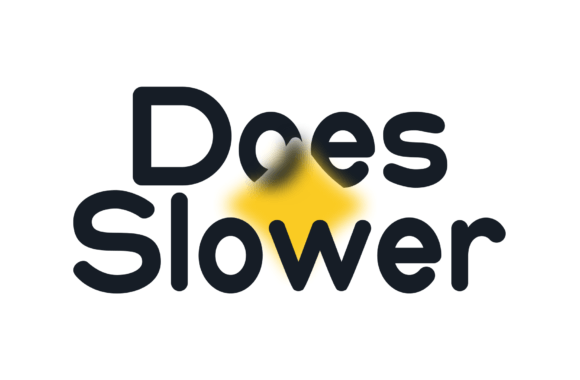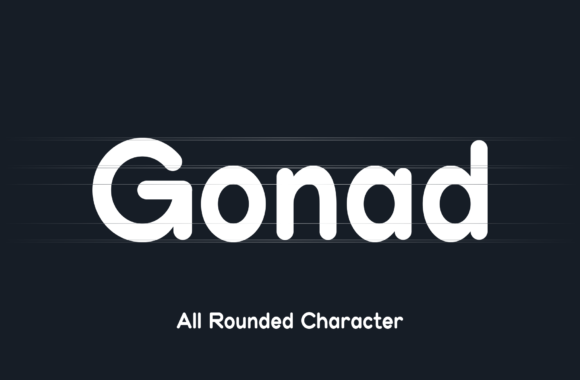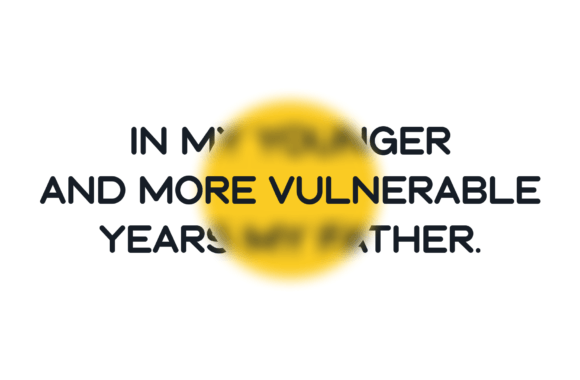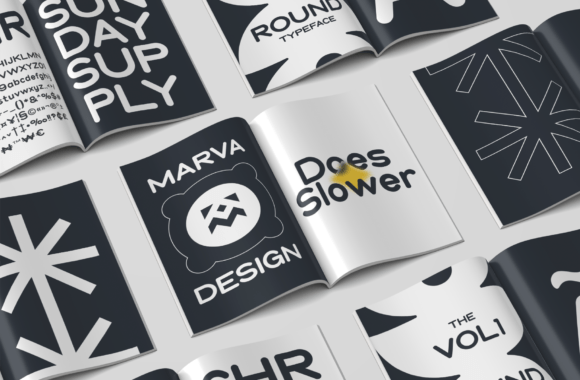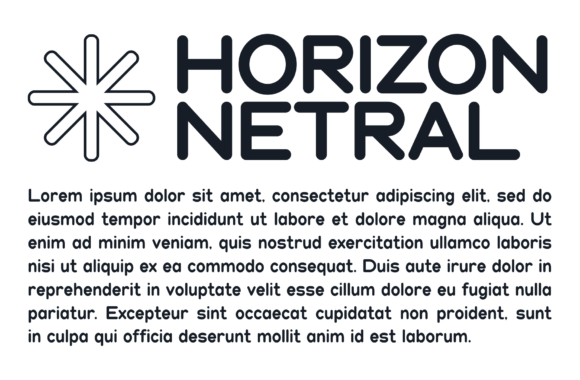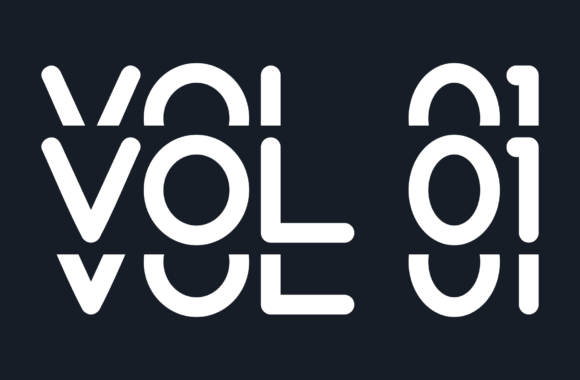
Introducing Gonad: The Ultimate Font for Modern Branding
In the world of design, fonts play a crucial role in shaping the identity of a brand. A well-chosen font can elevate a brand’s visual appeal, convey its message, and create a lasting impression on its audience. If you’re a designer or a crafter looking for a font that embodies friendliness, professionalism, and modernity, look no further than Gonad. This round and soft font is designed to provide a harmonious balance between professionalism and contemporary aesthetics, making it the perfect choice for your branding projects.
The Characteristics of Gonad
Gonad’s design is centered around its clean lines, balanced proportions, and round and soft style. These characteristics make it an ideal font for a variety of purposes, from websites to product design and brand identity. The font’s clean lines ensure that your message is conveyed clearly, while its balanced proportions provide a sense of harmony and stability. The round and soft style of Gonad gives it a friendly and approachable feel, making it perfect for brands that want to appear approachable and modern.
The Benefits of Using Gonad
So, why choose Gonad for your branding projects? Here are just a few benefits of using this versatile font:
- Good Readability: Gonad’s design prioritizes readability, ensuring that your message can be easily understood by your audience. Whether you’re designing a website, brochure, or product label, Gonad’s clear and legible letters will help you communicate your message effectively.
- Professional yet Friendly: Gonad strikes the perfect balance between professionalism and friendliness. Its clean lines and balanced proportions give it a professional edge, while its round and soft style make it approachable and modern.
- Versatility: Gonad is a versatile font that can be used for a variety of purposes, from corporate branding to product design. Its adaptability makes it an excellent choice for designers and crafters who need a font that can keep up with their creative demands.
Using Gonad for Corporate Branding
When it comes to corporate branding, a font can make or break a brand’s identity. Gonad’s clean lines, balanced proportions, and professional edge make it an excellent choice for corporate branding. Here are a few ways you can use Gonad to elevate your brand’s visual appeal:
- Logo Design: Gonad’s unique style makes it perfect for logo design. Its round and soft style can add a touch of friendliness to your logo, while its clean lines ensure that your brand’s message is conveyed clearly.
- Website Design: Gonad’s readability and legibility make it an excellent choice for website design. Its clean lines and balanced proportions ensure that your website’s content is easy to read and understand.
- Marketing Materials: Gonad’s versatility makes it perfect for marketing materials such as brochures, flyers, and business cards. Its professional edge ensures that your brand is taken seriously, while its friendly style makes it approachable and modern.
Tips for Getting the Most Out of Gonad
To get the most out of Gonad, here are a few tips to keep in mind:
- Experiment with Font Sizes: Gonad’s readability and legibility make it perfect for a variety of font sizes. Experiment with different font sizes to find the one that works best for your branding project.
- Pair it with Other Fonts: Gonad’s versatility makes it easy to pair with other fonts. Try pairing it with a bold font for headings or a script font for added elegance.
- Use it Consistently: Consistency is key when it comes to branding. Use Gonad consistently across all your branding materials to create a cohesive and recognizable brand identity.
In conclusion, Gonad is a versatile font that offers a harmonious balance between professionalism and contemporary aesthetics. Its clean lines, balanced proportions, and round and soft style make it perfect for a variety of purposes, from corporate branding to product design. With its good readability, professional yet friendly style, and versatility, Gonad is the perfect choice for designers and crafters looking to create a modern and elegant look for their branding projects.